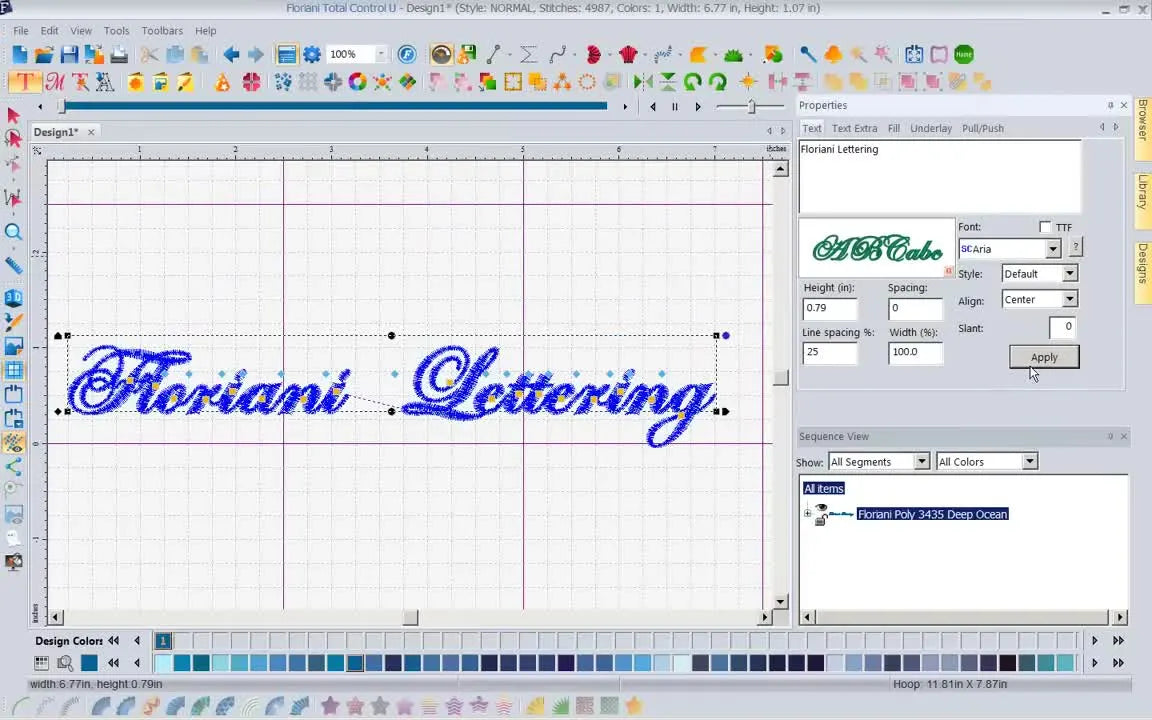
The "Zero-Fear" Guide to Floriani Lettering: From Coded Fonts to Production Profits
If you have ever stared at the Floriani font list and thought, "Why does every name start with a secret code?", you are not alone. More importantly, if you have ever stitched a name onto a customer’s polo shirt only to have the lettering sink, distort, or literally perforate the fabric, you know the sinking feeling that follows.
Embroidery is an unforgiving art. It is where digital logic meets physical resistance.
This guide rebuilds Kathy Quinn’s Floriani Total Control U lettering lesson into a production-grade Standard Operating Procedure (SOP). We move beyond just "clicking buttons" to understanding the physics of stitch formation. You will learn how to choose fonts that match your fabric, how to connect script without bulletproof knots, and when to stop blaming your skills and start upgrading your tools.
1. Decode the Matrix: Why Floriani Uses Prefixes
In a production environment, you don’t have time to test-stitch every font. Floriani prevents disaster by labeling fonts with prefixes that tell you exactly how the machine will behave.
Understanding these codes is your first line of defense against needle breaks and thread nests.
BL (Block): Heavy, solid coverage.
- The Physics: High stitch count. Requires strong stabilization (Cutaway preferred for wearables).
AP (Appliqué): Outlines designed for fabric placement.
- The Physics: Low stitch count, creating a border to hold a second fabric layer.
SC (Script): Connected, flowing letters.
- The Physics: Complex pathing. Requires precise "Pull Compensation" to avoid gaps.
O (Outline / Options): The Swiss Army Knife.
- The Physics: Variable density. Can be a simple run stitch or a satin border.
60 (Small Text): Digitized specifically for 60-weight thread.
- The Physics: Reduced density to prevent thread buildup in tiny letters (under 10mm).
- HW (Handwritten): Looser, organic density.
RN (Run): A single or triple pass of thread.
- The Physics: Zero bulk. Ideal for lightweight or unstable fabrics.
The "Sweet Spot" Strategy: Before you type a name, look at your fabric. Is it a thick towel? Go BL. Is it a delicate silk scarf? Go RN or O (Run style). Matching the prefix to the material is 80% of the battle.
Amateurs type a name, resize it arbitrarily, and pray. Professionals perform a "Pre-Flight Check."
The Protocol
- Open the Text Tool.
- Select Horizontal Text.
- Click the workspace to open the Properties box.
The Critical Step: Open the font dropdown and HOVER over the font name.
Why Hovering Saves Money
When you hover, the software reveals the "Hidden Truth" of the font:
- Character Set: Does it actually have numbers? (Many fancy scripts do not).
Size Limits: It shows the Min/Max height. Example: Block Anna requires a minimum of 0.39 inches (10 mm).
If you force a font below its minimum size, you are fighting physics. The needle penetrations will be too close, creating a "cardboard cutout" effect where the fabric tears.
Prep Checklist: The "Zero-reject" Setup
- Type Check: Does the font support the dates/numbers required? (Hover to verify).
- Size Check: Is your desired size within the Min/Max green zone?
Fabric Match:
- Stretchy/Knits? → Use Cutaway stabilizer + Ballpoint needle (75/11).
- Woven/Stable? → Tearaway stabilizer + Sharp needle (75/11).
- Needle Integrity: Run your fingernail down the needle tip. If you feel a "click" or snag, replace it immediately. A burred needle ruins lettering.
- Consumables Check: Do you have temporary spray adhesive (like 505) to float the fabric, or a magnetic hoop to clamp it without distortion?
3. The Block (BL) Trap: When Numbers Disappear
BL stands for Block, but it often implies "Header Text." Kathy demonstrates selecting a BL font (like Academy Bean) where the preview reveals Uppercase Only and No Numerals.
The Fix: If your text defaults to generic block characters or symbols when you type a number, do not panic. The font is not broken; it simply lacks those assets. Check the prefix. If you need dates (e.g., "Est. 2024"), you must switch to a font that explicitly supports numerals.
4. Appliqué (AP): The Alignment Challenge
AP fonts create bold impact with low stitch counts, saving you production time. Kathy selects an AP font and clicks Apply, rendering a placement line.
You can toggle the edge finish in properties:
- Satin: Classic, high coverage.
- Blanket: Vintage, hand-stitched look.
-
Motif: Decorative patterns.
The Production Reality: Hooping is Everything
Appliqué is unforgiving. If your fabric shifts 1mm between the "Placement Stitch" and the "Tack Down Stitch," the raw edge will peek out, ruining the garment.
- Use double-curved appliqué scissors instead of standard paper scissors to avoid cutting the base fabric.